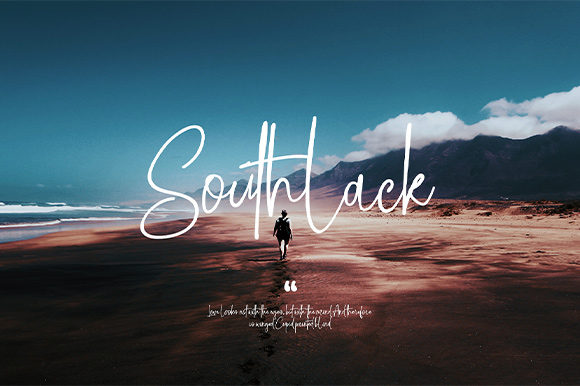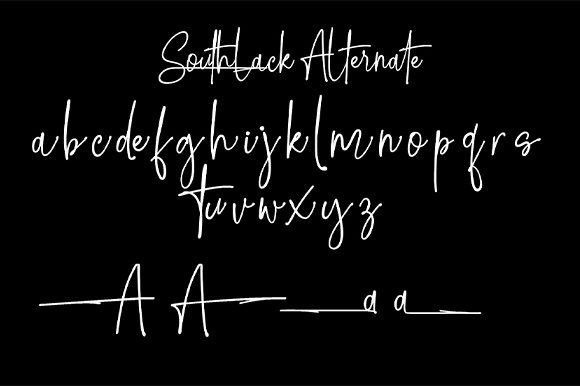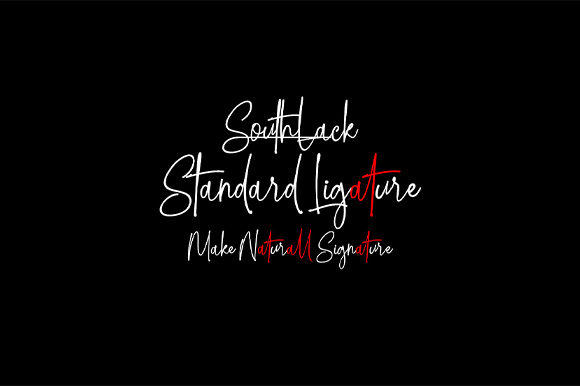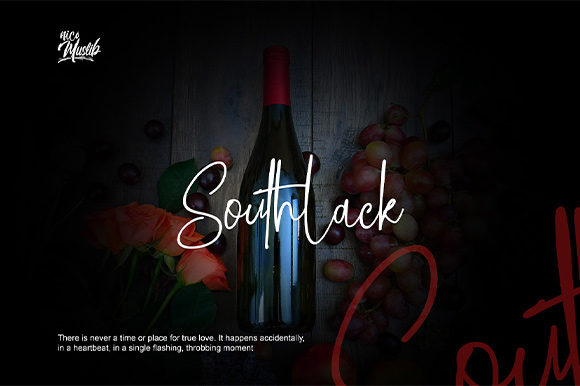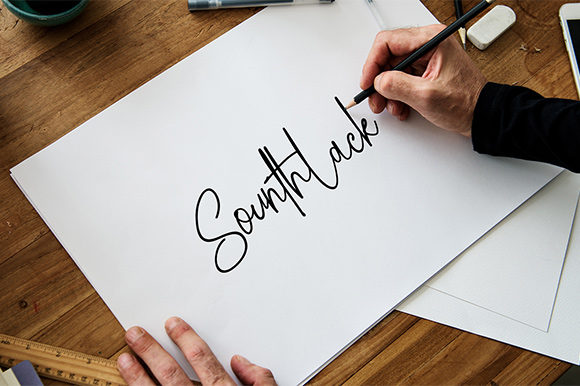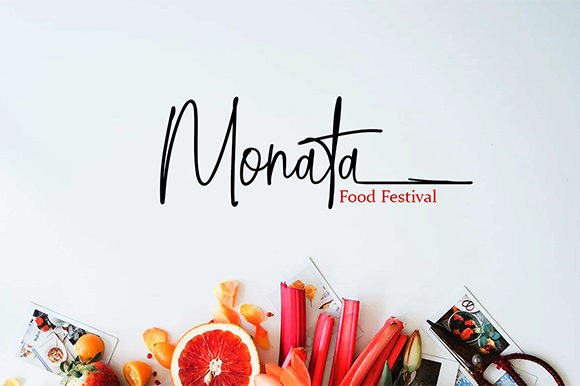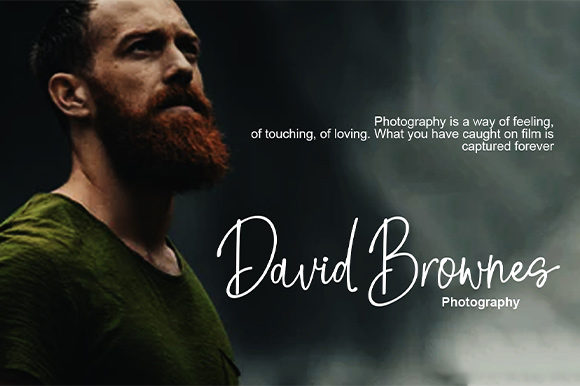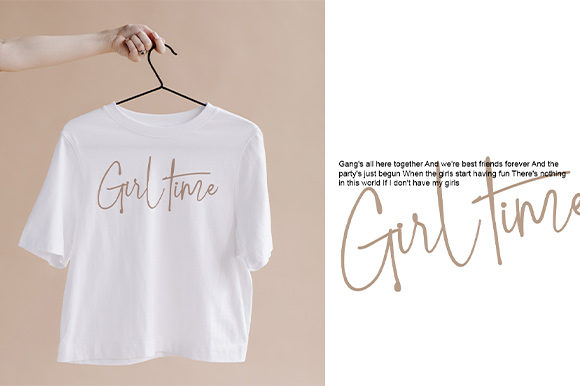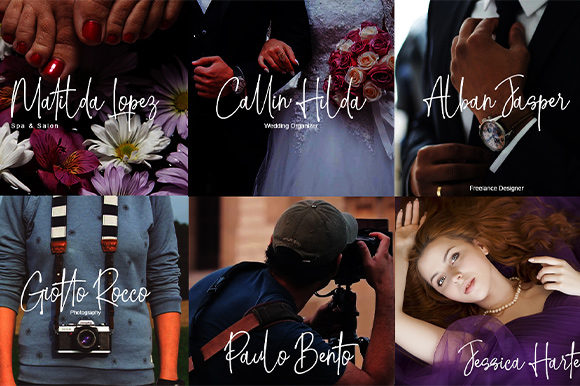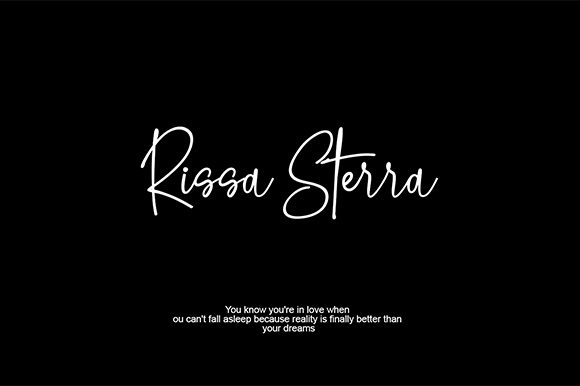
Southlack Font
About Southlack Font
Southlack is an incredibly unique script font that’s great for a wide variety of design applications, be it signatures, branding or headlines!